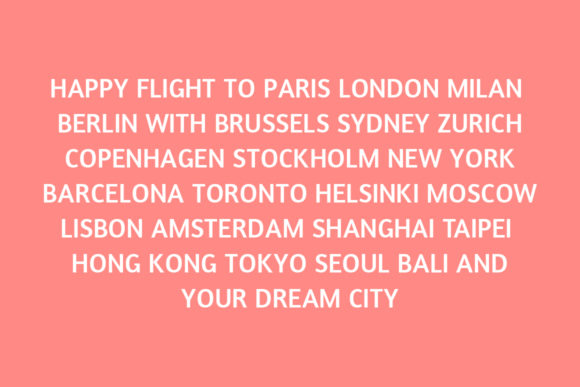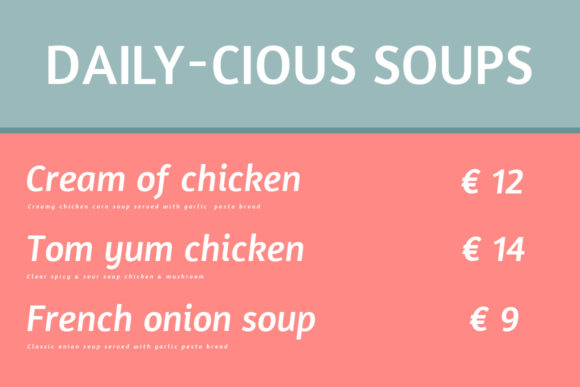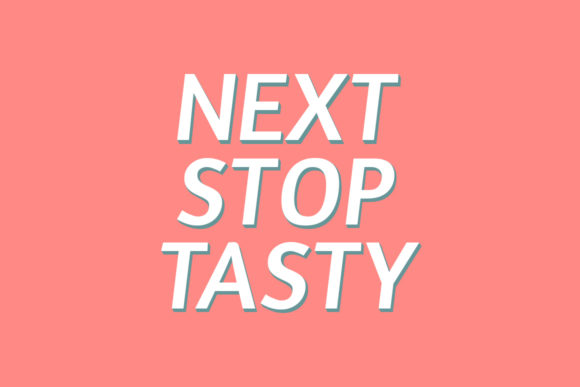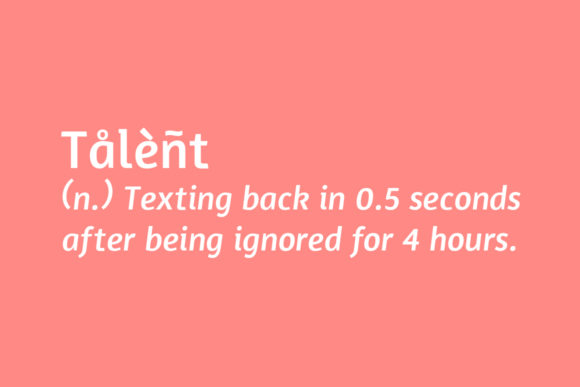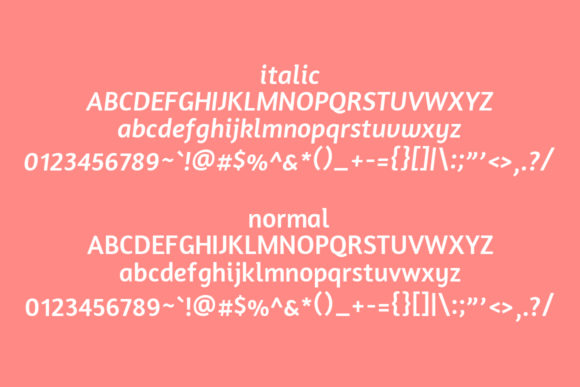
Introduction to Oliviare Font
Have you ever found yourself in the middle of a creative project, staring at a blank canvas or screen, and wondering which font will bring your vision to life? The struggle is real, but fear not, dear designers! We’ve got just the thing to make your design dreams a reality – the Oliviare Font.
This vintage-inspired sans serif font is the perfect addition to any design resource, offering a unique blend of elegance and simplicity. With its clean lines and high-quality design, Oliviare Font is sure to elevate your creative projects and leave a lasting impression. Whether you’re working on a branding project, creating a social media graphic, or designing a website, this versatile font has got you covered.
Key Features of Oliviare Font
- High-quality design resource with a modern and elegant style, perfect for creative projects.
- Comes with a transparent background, allowing for easy customization and integration with various design elements.
- Includes a variety of weights and styles, including regular, bold, italic, and bold italic, to suit different design needs.
- Designed with a high resolution of 1024×1024 pixels, ensuring crisp and clear text display in various sizes.
- Unique characteristics include a flowing script and a subtle flair, adding a touch of sophistication to any design.
Honest Review: Oliviare Font
I recently stumbled upon the Oliviare Font while searching for a design resource to enhance a creative project. As a designer, I was excited to give it a try. Here’s my honest take on this font.
- High quality design that’s perfect for creative projects
- Transparent background option for flexibility
However, there are some limitations to consider: ⚠️ The font doesn’t have a lot of customization options, which might be a drawback for designers who want to fine-tune their typography. Additionally, the font family is relatively small, which may not be ideal for projects that require multiple font styles.
Overall, I’m impressed with the Oliviare Font. While it may not be the most customizable font out there, its clean design and transparent background option make it a great addition to any design resource library.
Tips for Getting the Most Out of Oliviare Font
For the best results, use Oliviare Font in conjunction with other design elements. Experiment with different font sizes, colors, and styles to create a unique design.
Oliviare Font is commonly used in logo designs, business cards, and social media graphics. Its transparent background makes it perfect for creating eye-catching designs.